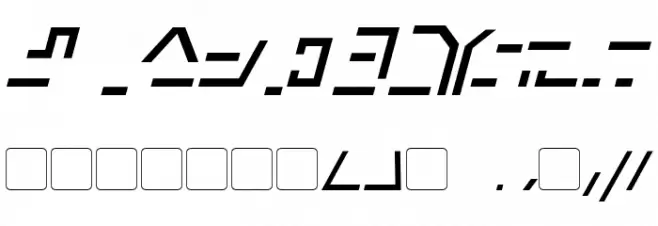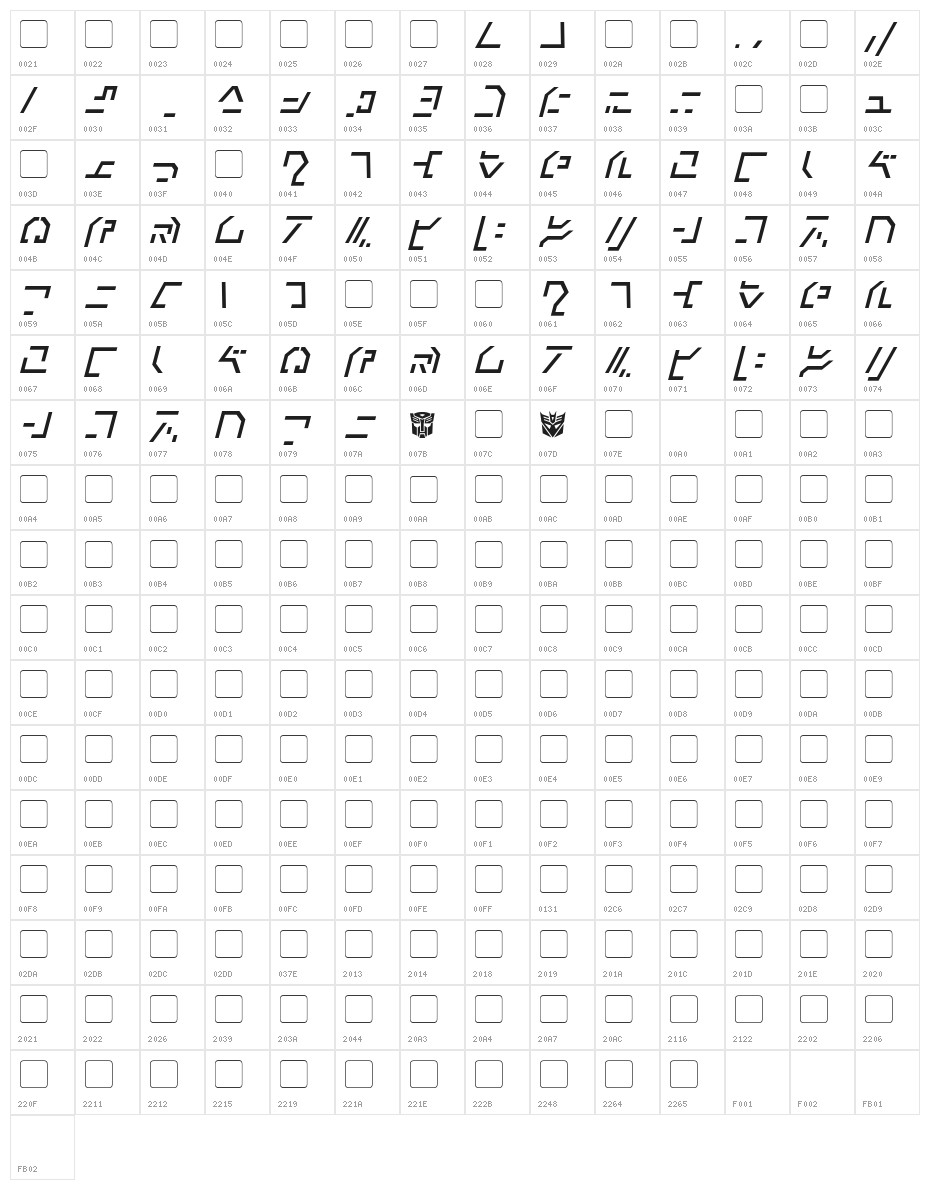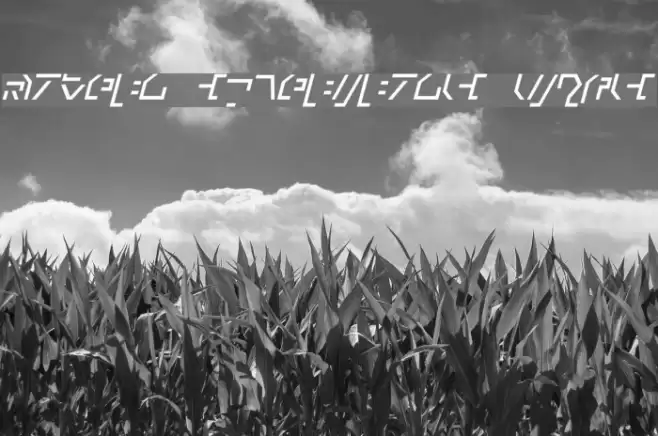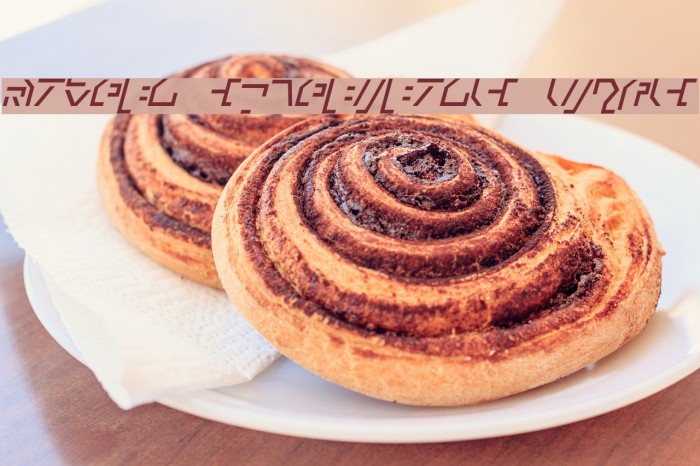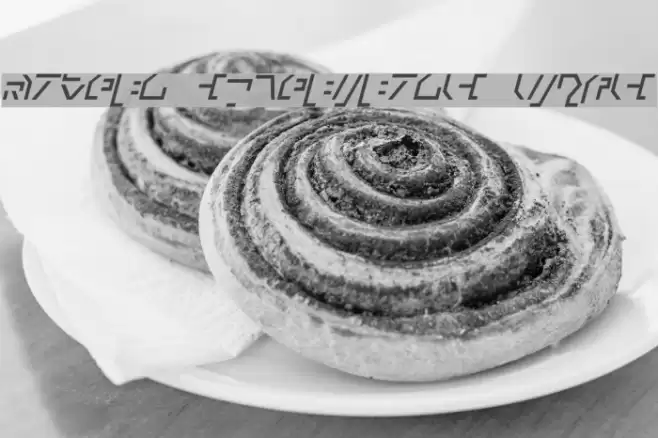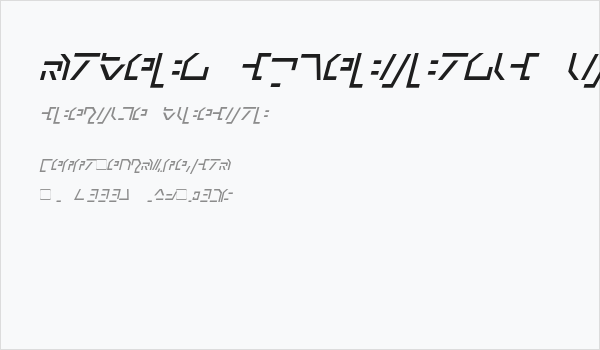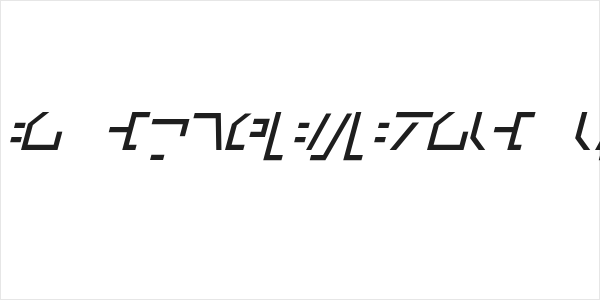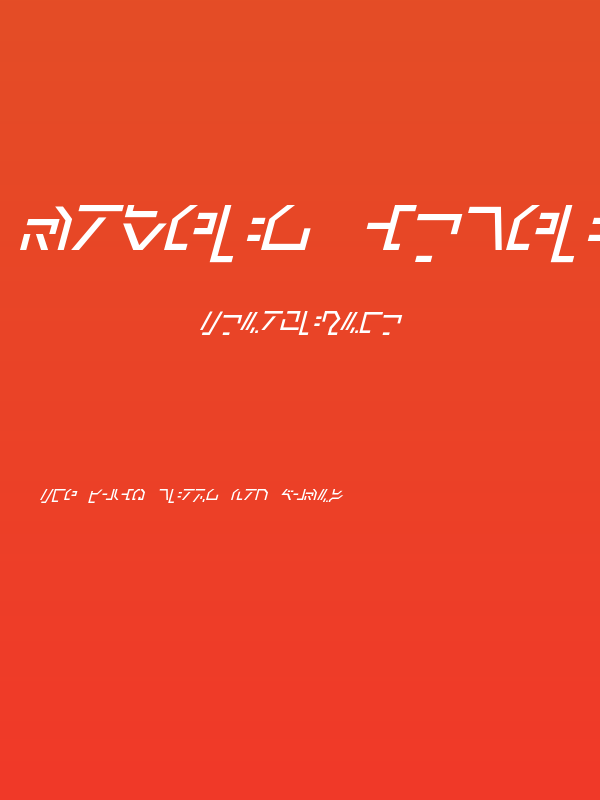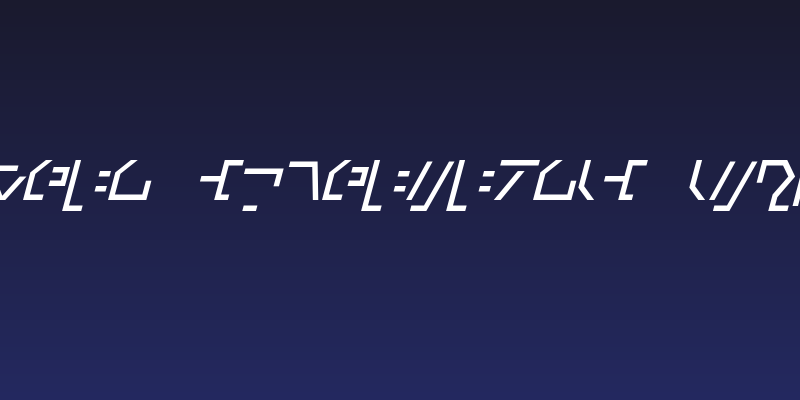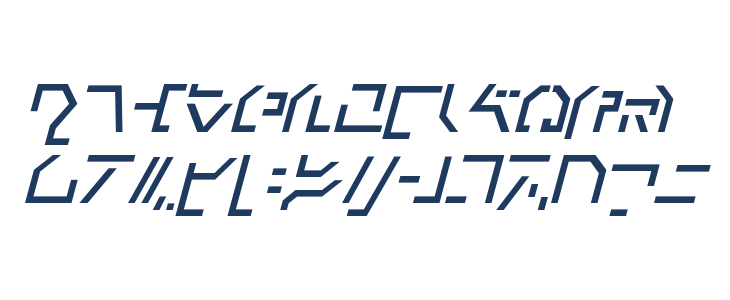
Modern Cybertronic Italic Font
Modern Cybertronic Italic Description
This font features a futuristic and angular design, reminiscent of digital or cybernetic aesthetics. The characters are composed of sharp, geometric lines with a consistent slant, giving an italicized appearance. The style is highly stylized, with a focus on creating a sense of movement and speed. The uppercase and lowercase letters maintain a uniform height, contributing to a cohesive and streamlined look. The numerals and special characters follow the same design principles, ensuring a harmonious overall appearance. This font is ideal for projects that require a modern, tech-inspired look.